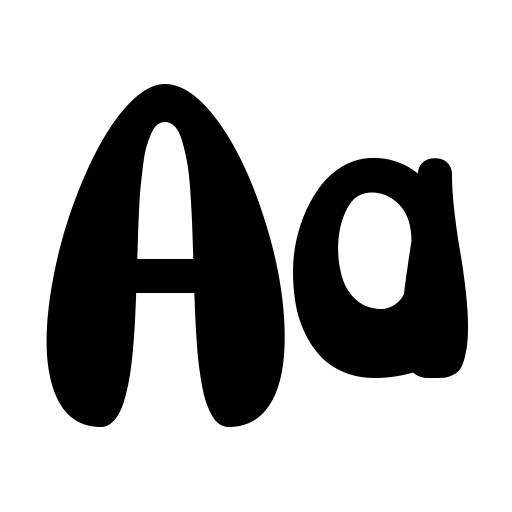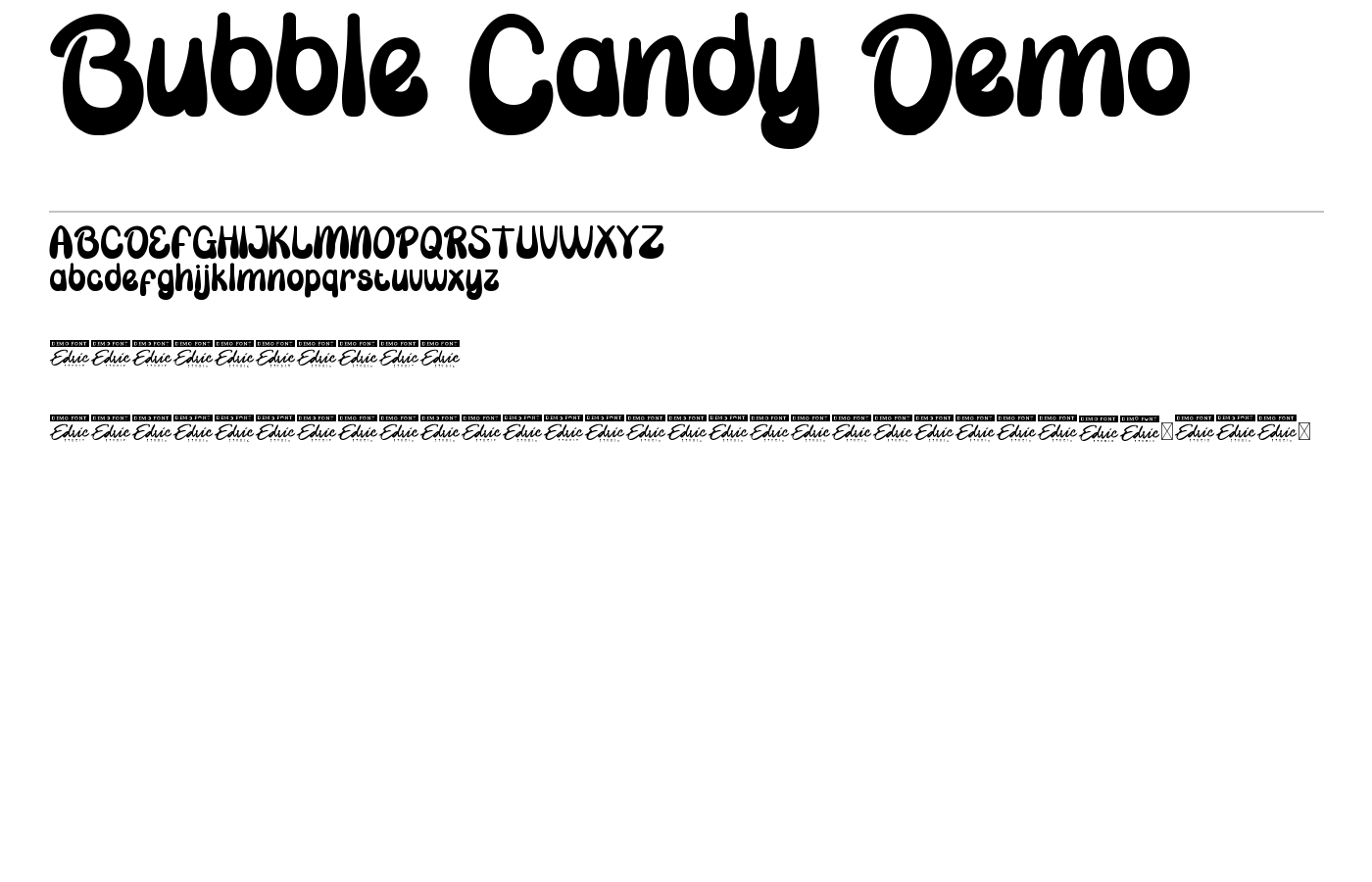
Bubble Candy Demo is a playful, rounded sans serif font with a bold weight and a bubbly, soft appearance that feels fun and inviting. Its generous curves and friendly letterforms make it perfect for designs aimed at children, casual branding, or anything needing a cheerful, approachable vibe. This font works well in logos, posters, and packaging where a lively and informal tone is desired.
Bubble Candy Demo Font
About Bubble Candy Demo Font